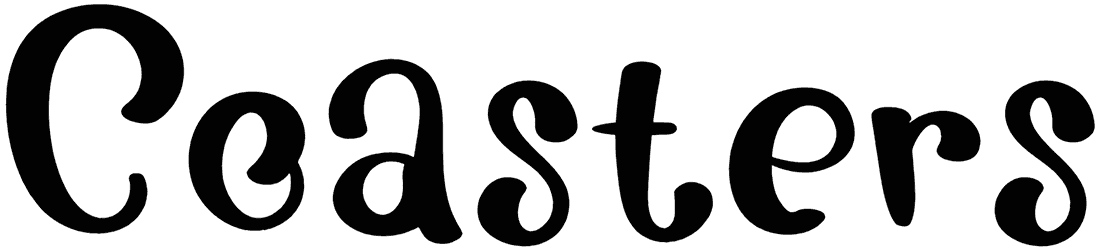
Coasters Font
Coasters is a beautiful cartoon font that has the true potential to be easily matched with a vast set of creative ideas ranging from illustrations, animation posters, storybook covers, and applications, to the user interface of video games.
Coasters is a cute display font. Clean and a little bit quirky, this font is the perfect fit for all of your logos, branding, social media, and crafty DIY projects.